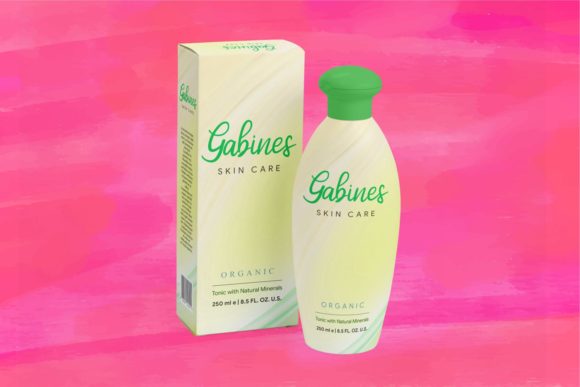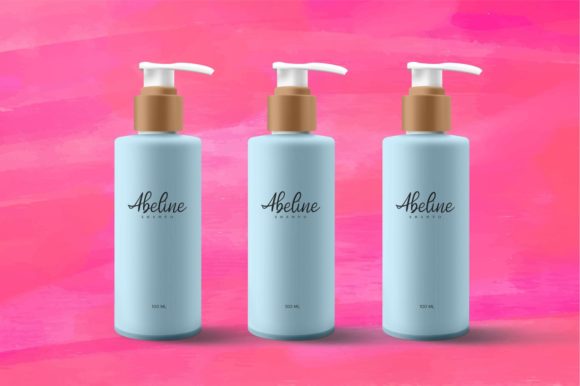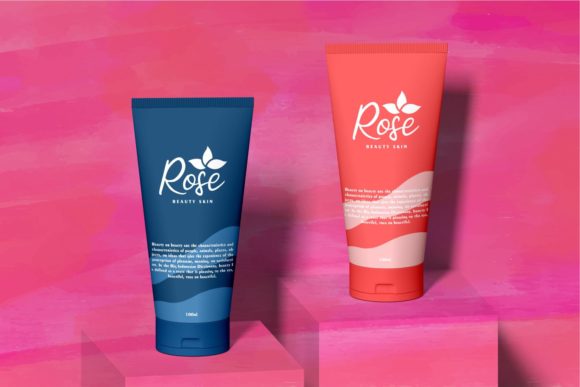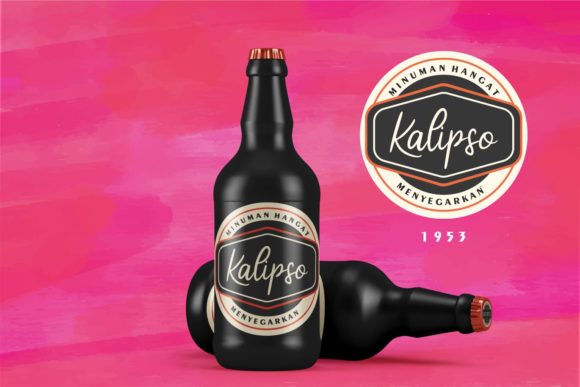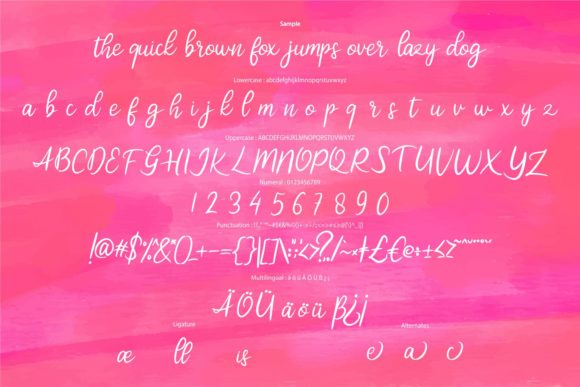
Daitane Font: A Sweet and Cursive Handwritten Font for Your Design Projects
Are you looking for a font that can add a touch of sweetness and romance to your design projects? Look no further than the Daitane Font! This beautiful, cursive handwritten font is perfect for a variety of design ideas and is sure to bring a joyful and romantic feel to each of your projects.
What is Daitane Font?
Daitane is a sweet and cursive handwritten font that is designed to bring a touch of elegance and sophistication to your design projects. With its gentle and flowing lines, this font is perfect for creating beautiful and eye-catching designs that will capture the attention of your audience.
Characteristics of Daitane Font
The Daitane Font has several characteristics that make it a great choice for designers and crafters. Some of its key features include:
- Sweet and Cursive Design: The Daitane Font has a sweet and cursive design that is perfect for creating romantic and feminine designs.
- Handwritten Style: The font has a handwritten style that gives it a personal and unique touch.
- Gentle Lines: The font features gentle lines that flow smoothly, making it easy to read and beautiful to look at.
- Versatile: The Daitane Font is versatile and can be used for a variety of design projects, including wedding designs, branding, packaging, and more.
Uses of Daitane Font
The Daitane Font is perfect for a variety of design projects, including:
- Wedding Designs: The font is perfect for creating beautiful wedding invitations, wedding cards, and other wedding-related designs.
- Branding and Packaging: The font can be used for branding and packaging designs, especially for products that are targeted towards women or couples.
- Stationery and Cards: The font is great for creating beautiful stationery and cards, including greeting cards, thank you cards, and more.
- Digital Designs: The font can be used for digital designs, including social media graphics, blog posts, and more.
Why Choose Daitane Font?
There are many reasons why you should choose the Daitane Font for your design projects. Some of the benefits of using this font include:
- Unique and Personal Touch: The font has a unique and personal touch that will make your designs stand out.
- Elegant and Sophisticated: The font has an elegant and sophisticated feel that will add a touch of luxury to your designs.
- Easy to Read: The font is easy to read, making it perfect for designs that require a lot of text.
- Versatile: The font is versatile and can be used for a variety of design projects.
Tips for Using Daitane Font
Here are some tips for using the Daitane Font in your design projects:
- Pair it with Other Fonts: The Daitane Font can be paired with other fonts to create a unique and interesting design.
- Use it for Headings and Titles: The font is perfect for headings and titles, and can be used to add a touch of elegance and sophistication to your designs.
- Experiment with Colors: The font can be used with a variety of colors, so don’t be afraid to experiment and find the perfect color scheme for your design.
The Daitane Font is a beautiful and versatile font that is perfect for a variety of design projects. With its sweet and cursive design, gentle lines, and handwritten style, this font is sure to bring a joyful and romantic touch to each of your projects. Whether you’re a designer or crafter, the Daitane Font is a great choice for anyone looking to add a touch of elegance and sophistication to their designs.